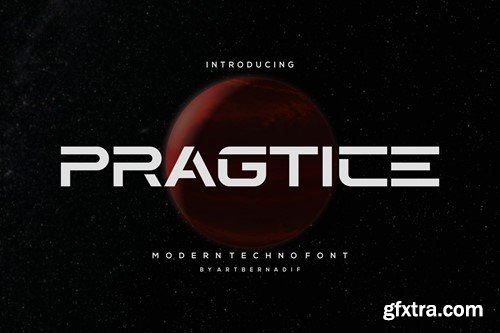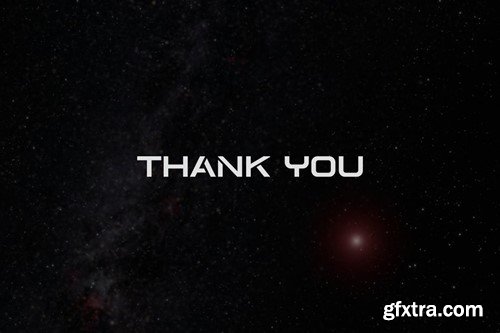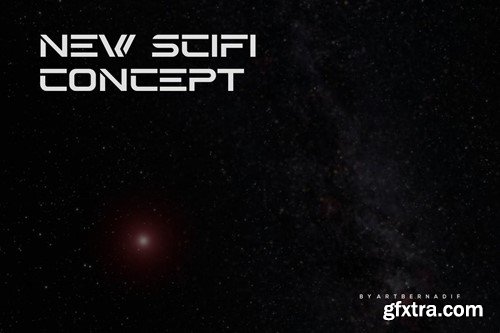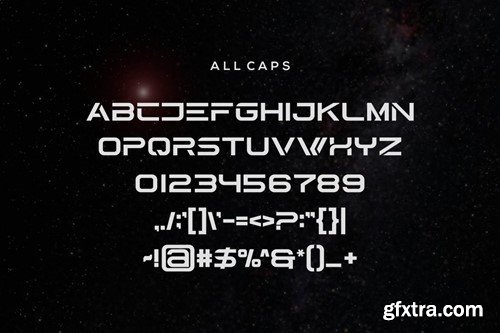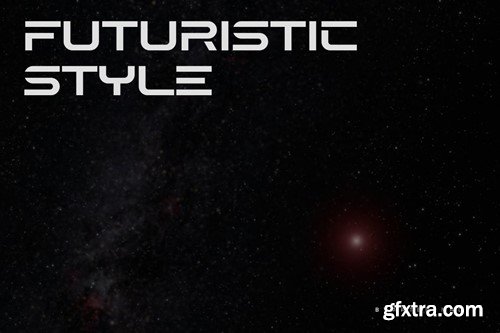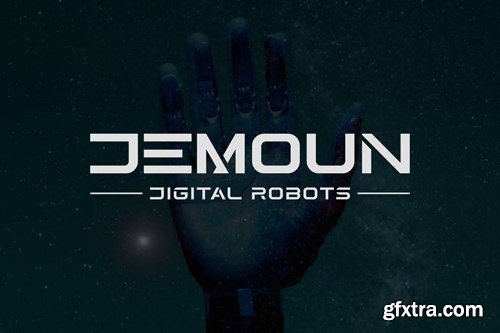
Pragtice - Modern Techno Font
Introducing our new product Pragtice Font Modern Techno Font Pragtice Font Modern Font is a bold and authentic display font. The font is suitable for any branding project like logo, t-shirt printing, esport, and many more. outstanding in a wide range of contexts. availlable